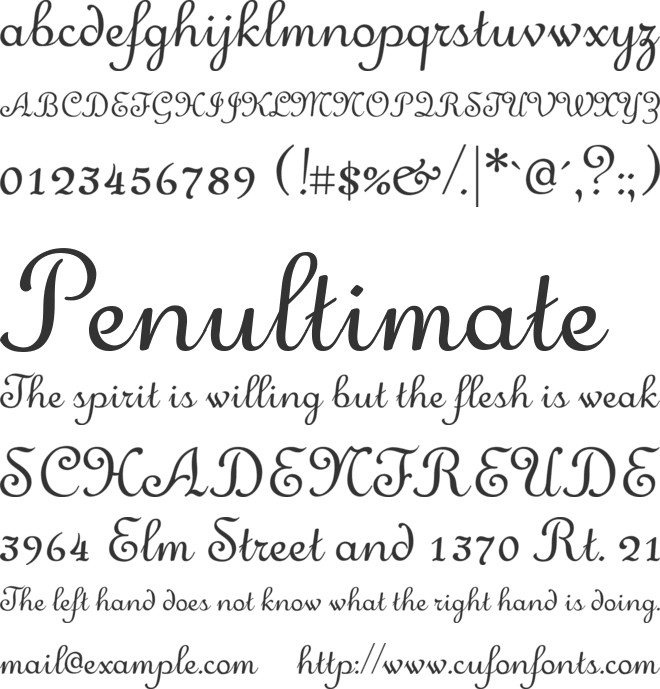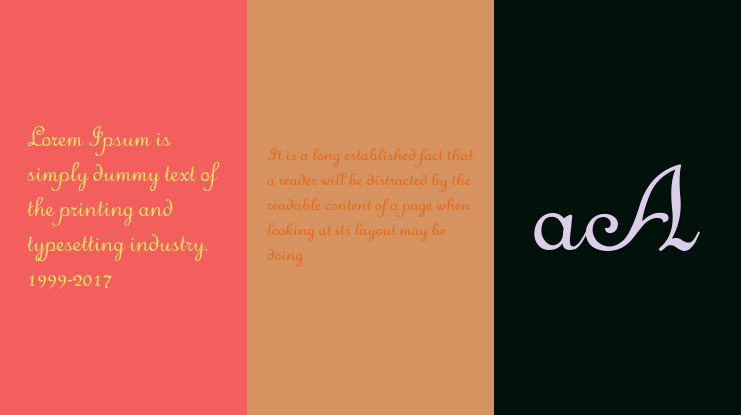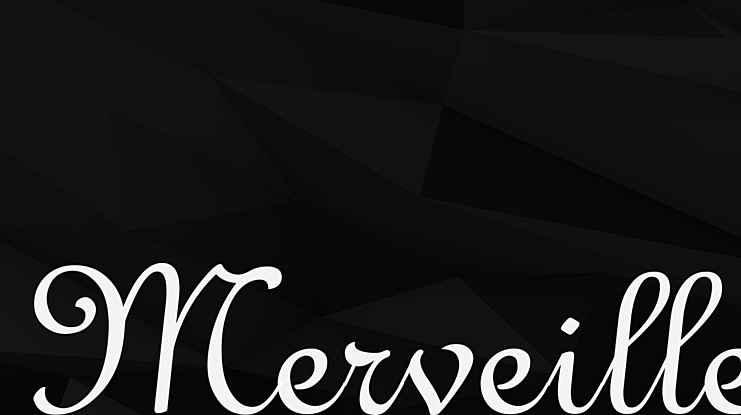
Merveille Font
My own attempt at a script in the style of eighteenth and nineteenth century French Ronde. Free for personal use. Donate to use commercially. Email me at nymphont at yahoo dot com for more info, thanks so much!